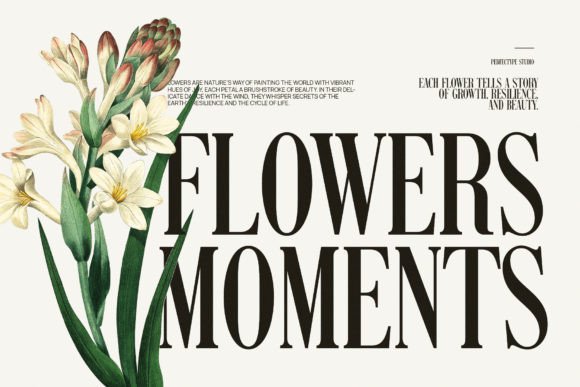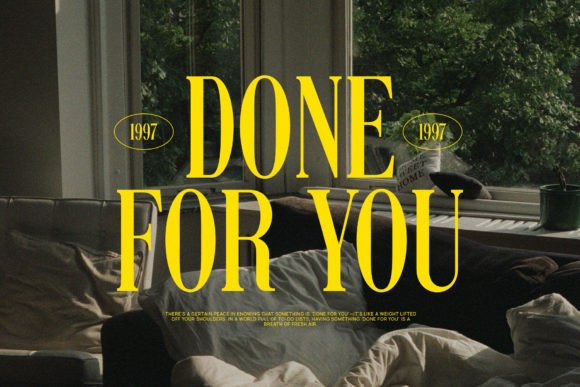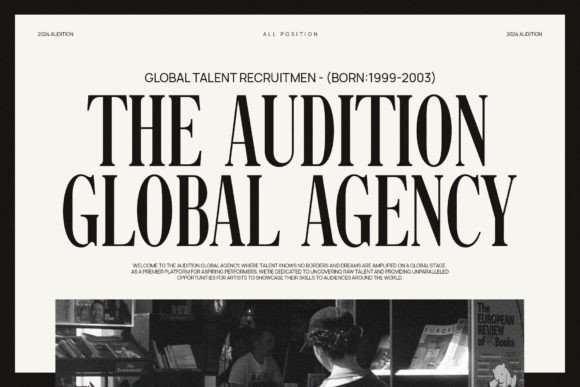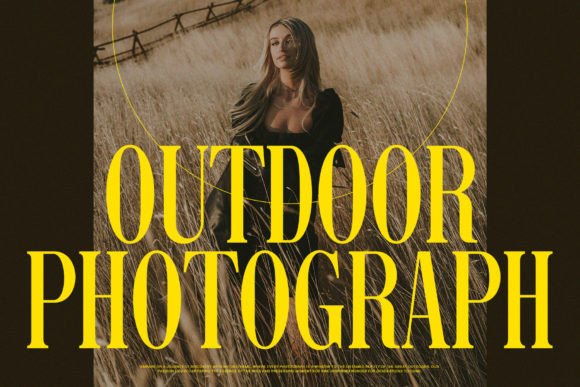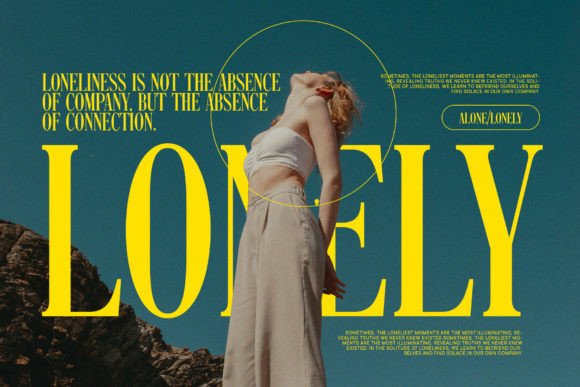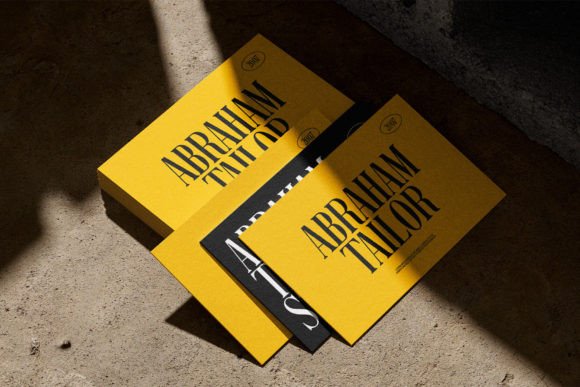
Introduction to Magnisa Font
Have you ever stumbled upon the perfect design resource that elevates your creative project from ordinary to extraordinary? That moment of discovery can be a game-changer for any designer. For me, it was the moment I laid eyes on the Magnisa Font – a stunning serif font that exudes elegance and luxury. Its sophisticated design makes it a valuable asset for any design professional looking to create high-quality visual content.
As a designer, you understand the importance of choosing the right font to convey your message and create a lasting impression. That’s where Magnisa Font comes in – a beautifully crafted font that is perfect for branding projects, logos, social media posts, and more. With its clear and legible design, you can trust that your message will be conveyed with precision and style.
Key Features of Magnisa Font
- Comes in a single weight, making it easy to use in various design contexts
- Designed to be scalable, suitable for use in both small and large formats, up to 2048px resolution
Honest Review: Magnisa Font
I recently had the opportunity to work with the Magnisa Font, and I must say, it’s a solid addition to any designer’s toolkit. The font offers a unique blend of modern and elegant styles that are perfect for a wide range of creative projects.
Here are some things that I think work well with the Magnisa Font:
- ✨ Beautiful, high-quality glyphs that are sure to elevate any design
- ✨ A wide range of weights and styles to suit different design needs
That being said, there are a few limitations to be aware of:
- ⚠️ Some of the characters may not display properly on a transparent background, which can be a bit frustrating
- ⚠️ The font may not be as versatile as some other options, which can limit its use in certain design scenarios
Overall, I’m impressed with the Magnisa Font. It’s a high-quality design resource that can add a touch of sophistication to any creative project. While it may have a few limitations, I think it’s well worth considering for any designer looking to elevate their work.
Magnisa Font
Magnisa Font is a high-quality design resource that offers a unique and creative look for your projects. This font features a transparent background, making it perfect for adding a touch of elegance to your designs.
Getting the Most Out of Magnisa Font
To get the most out of Magnisa Font, use it in combination with other high-quality design resources. Experiment with different font sizes, colors, and backgrounds to create a unique look for your project.
Magnisa Font is perfect for creating:
- Branding materials, such as logos and business cards
- Marketing materials, such as brochures and flyers
Is the Magnisa Font suitable for use on a transparent background?
Yes, the Magnisa Font has a transparent background, making it perfect for use on transparent or semi-transparent backgrounds. This feature allows for seamless integration with various design elements and ensures a high-quality finish for your creative project.